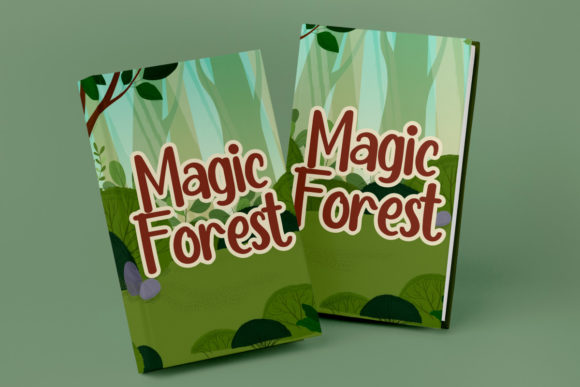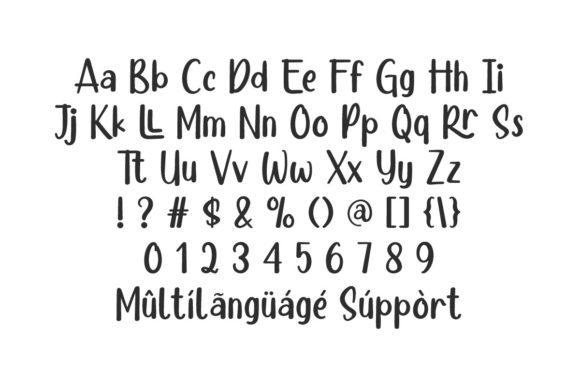
King Cartoon Font
db-ku.com - Script & Handwritten -- King Cartoon is a funny cartoon brush handwriting font. This font is carefully crafted in each letter so we can make sure it looks good, and bring natural handwriting and perfect basic letters. Carefully designed to work together in harmony. This one should make your designs instantly professional and jaw-dropping!